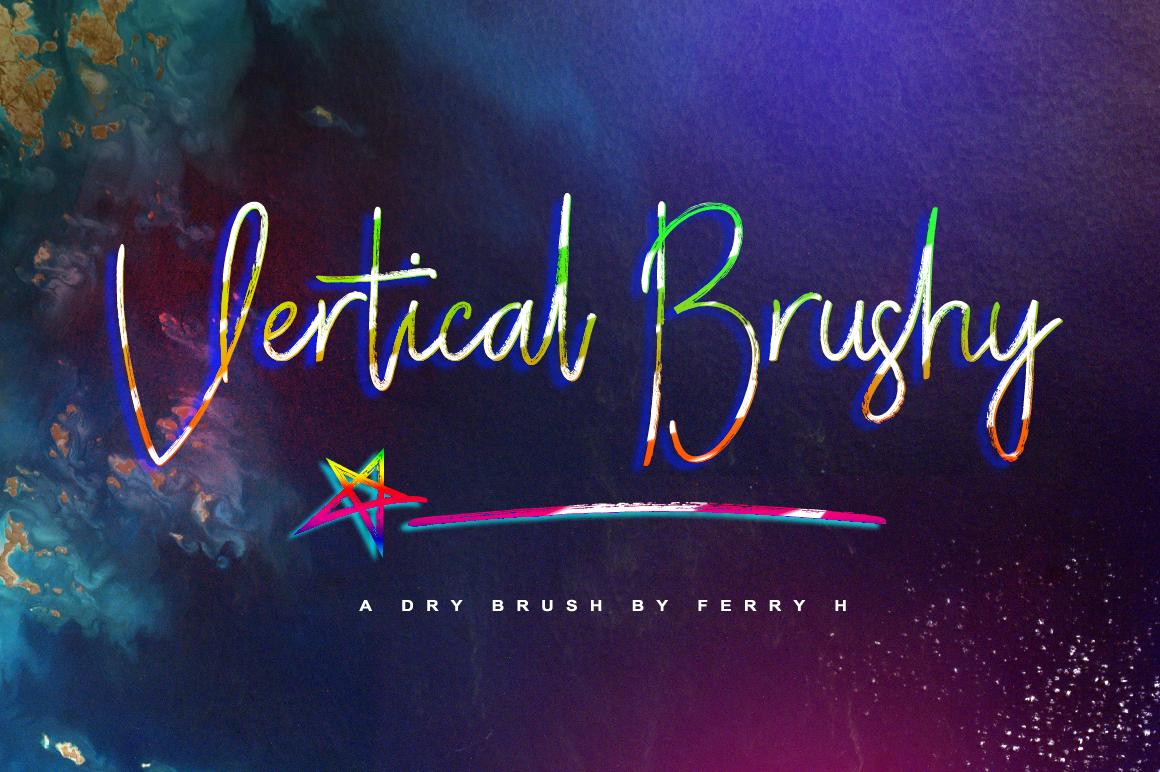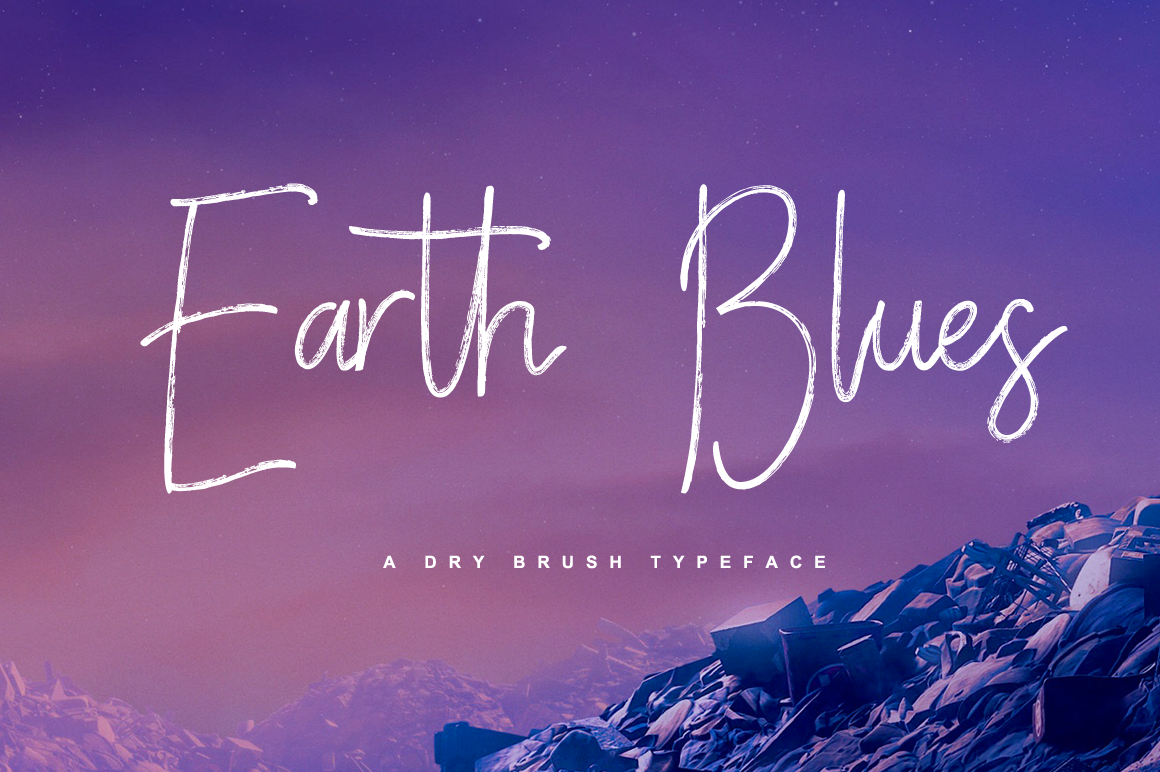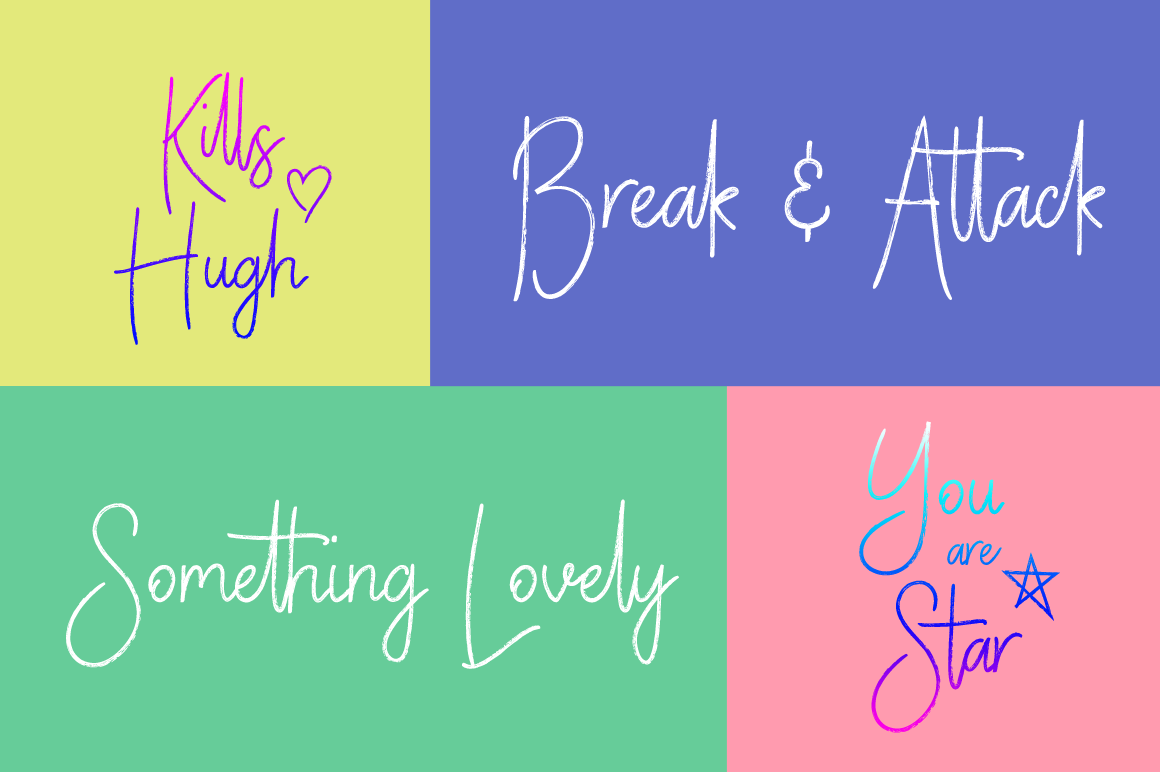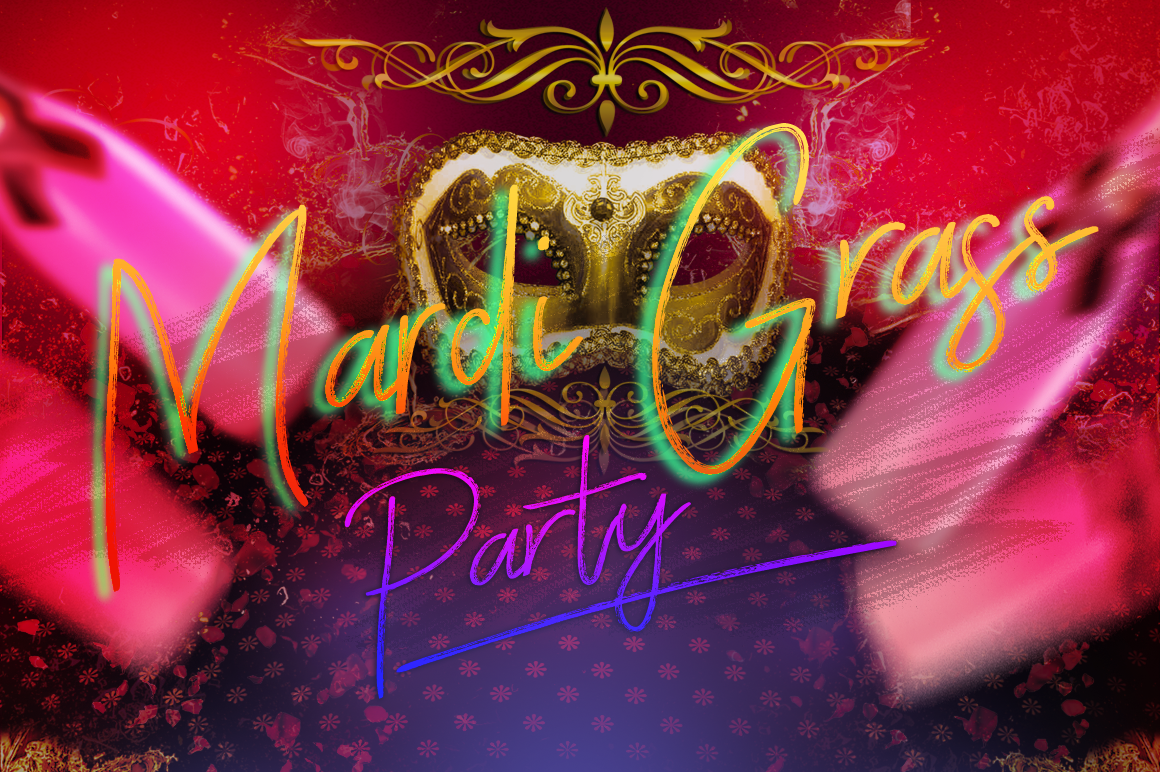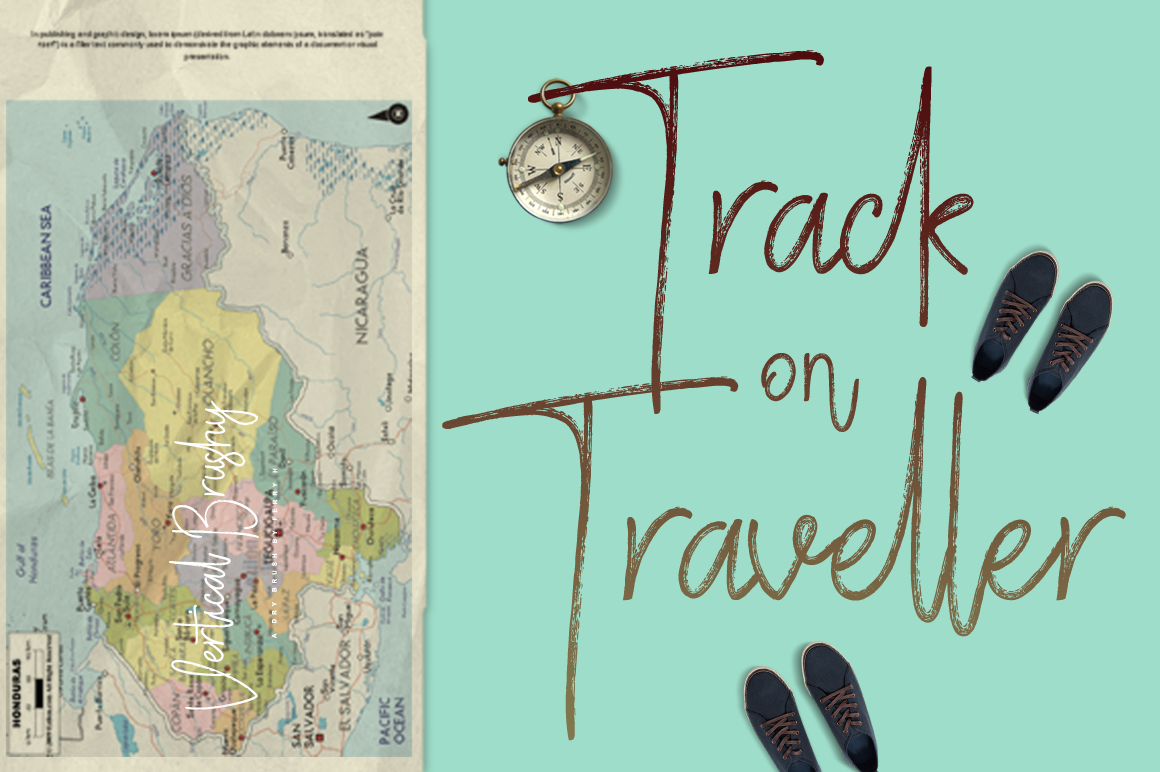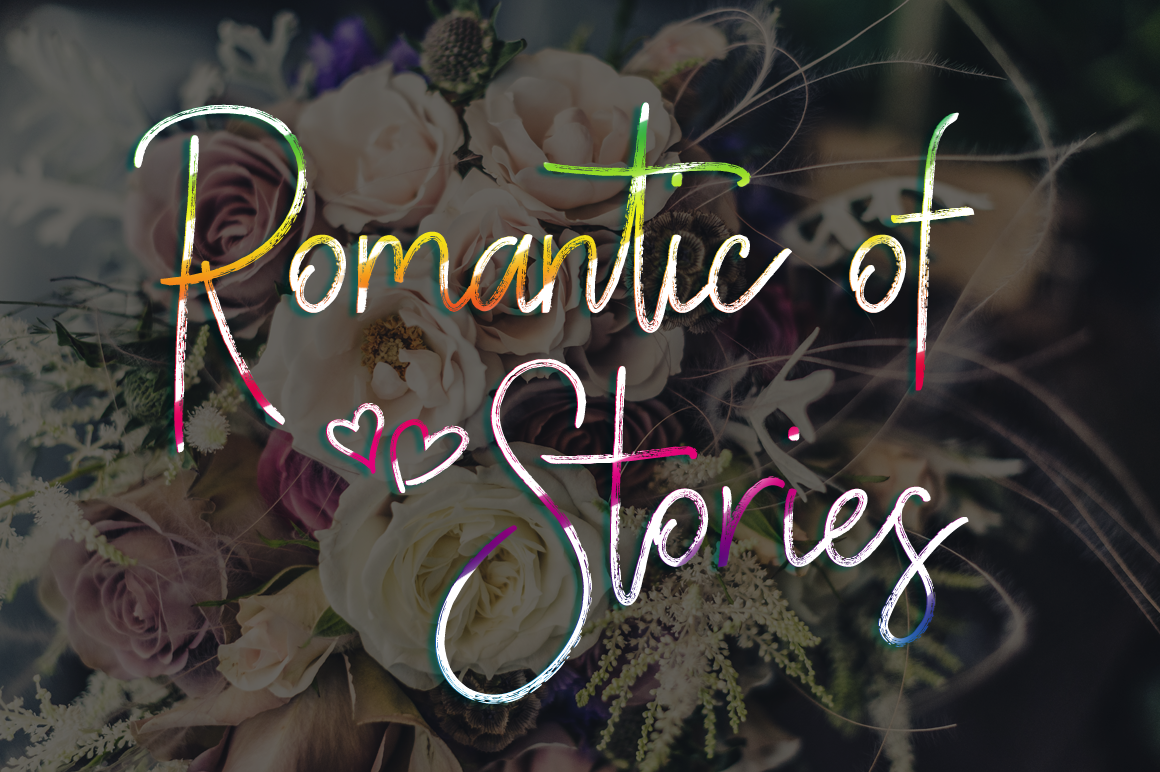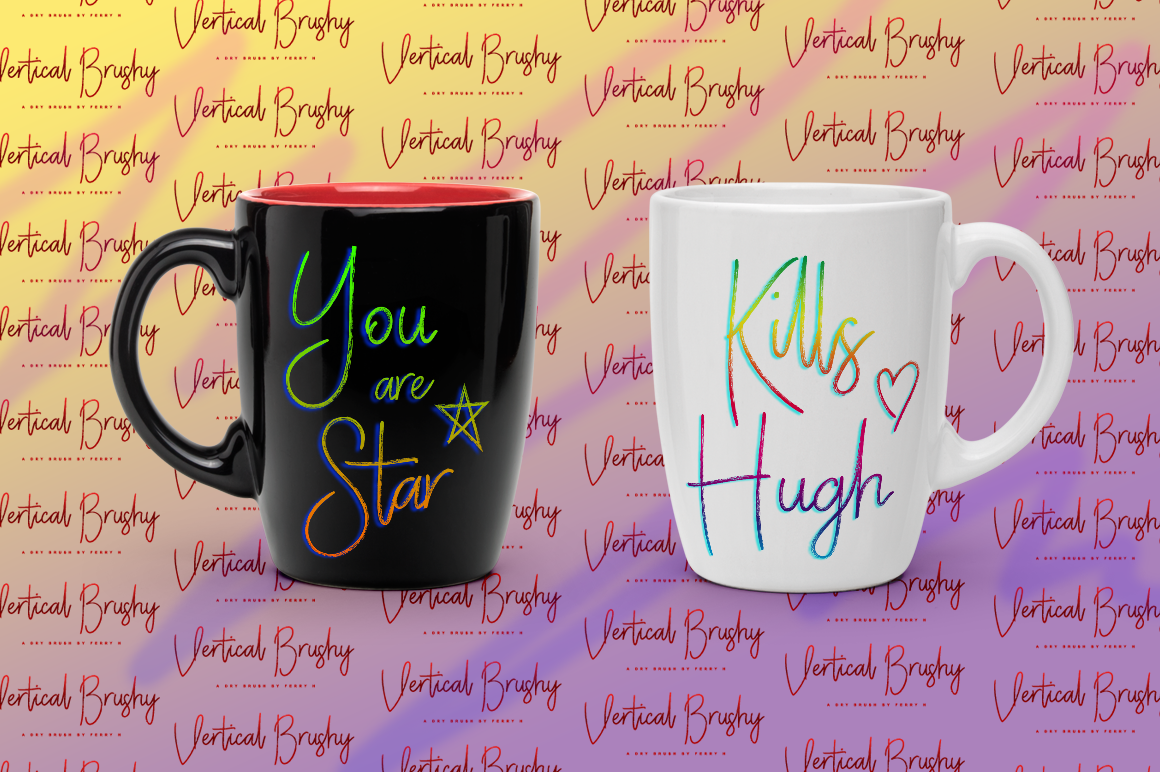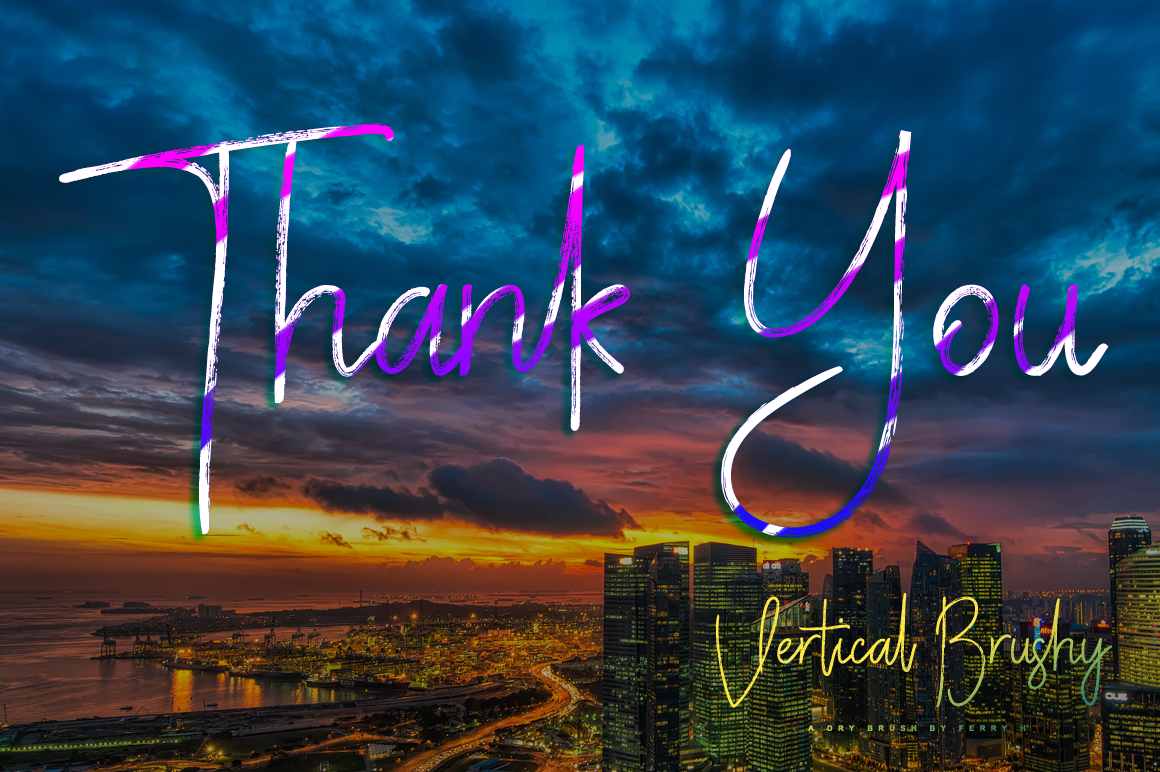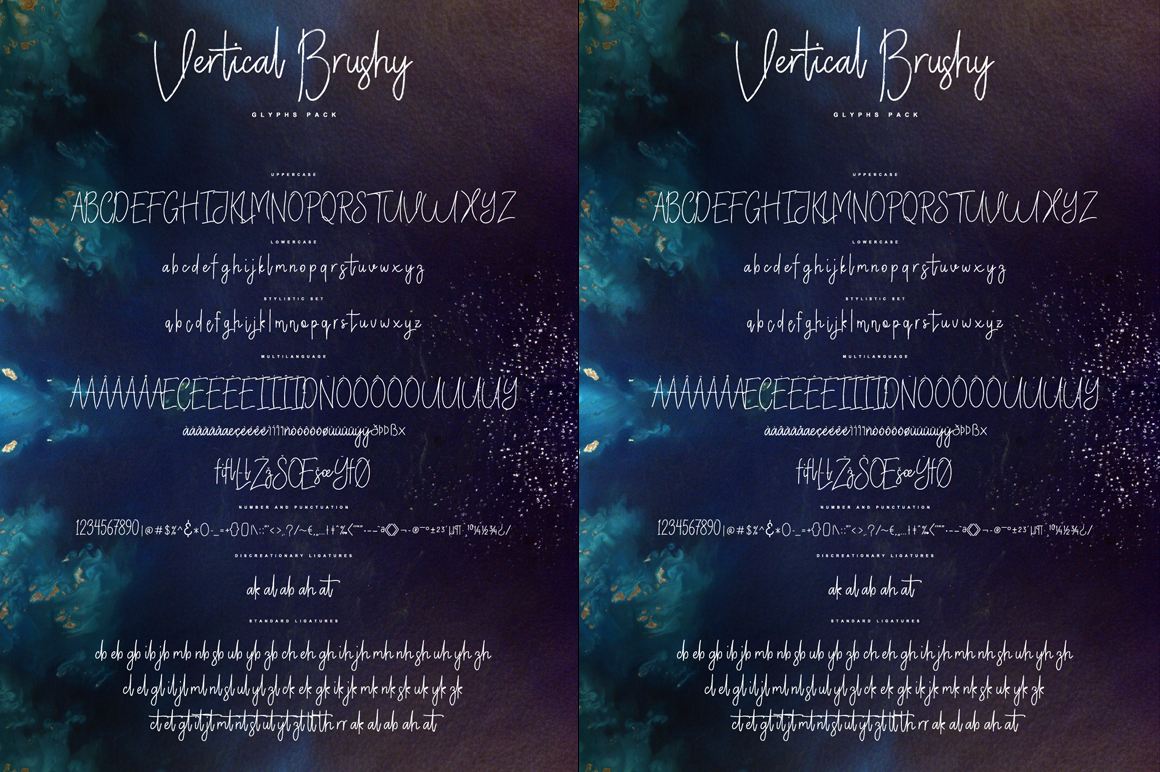
Vertical Brushy – Script Font
Vertical Brushy is a dry brush script font with a modern grunge script and a hand-letter dry brush authentic style. It is suitable for design, element design, wedding, event, t-shirt, logo, badges, stickers, awesome work, etc.
– Open Type Features Fonts
– Combination alternative ligature fonts
– Standard Ligatures, Stylistic Set, Multilanguage Characters, etc
– Modern Brush Script
– Multilanguage Support
– Unique style fonts
– Easy customize